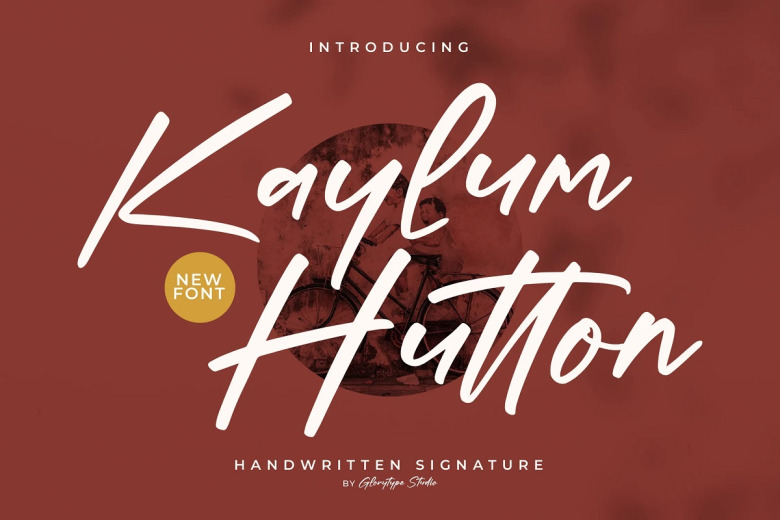
Kaylum Hutton Font
Kaylum Hutton Script Font is a Handwritten Signature font, perfectly suitable for your projects, including: logos, branding projects, homeware designs, product packaging, mugs, quotes, posters, shopping bags, t-shirts, book covers, name card, invitation cards, greeting cards, label, photography, watermark, special events, and all your other lovely projects that need a beautiful script taste.